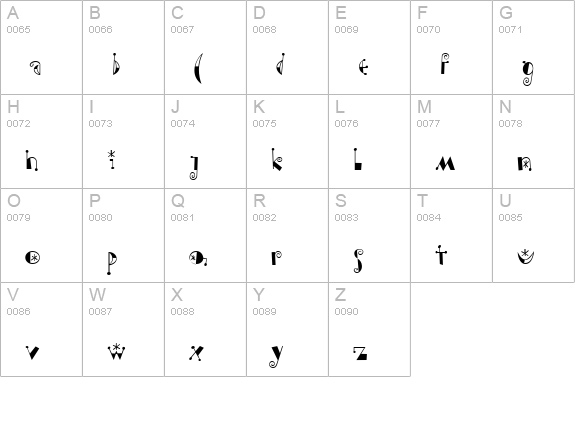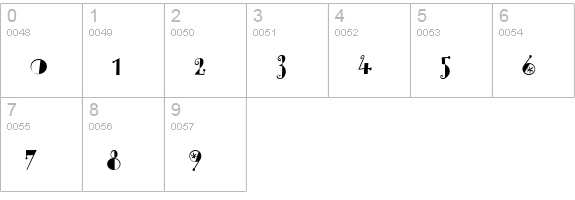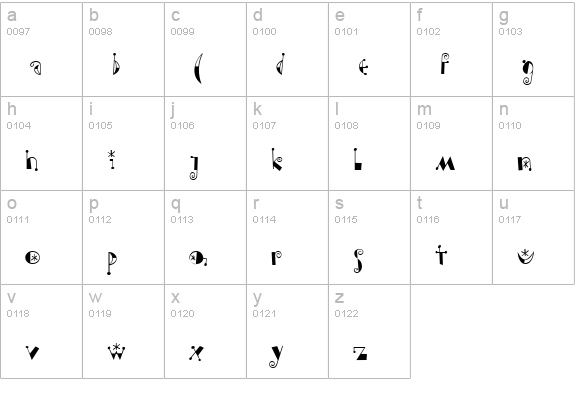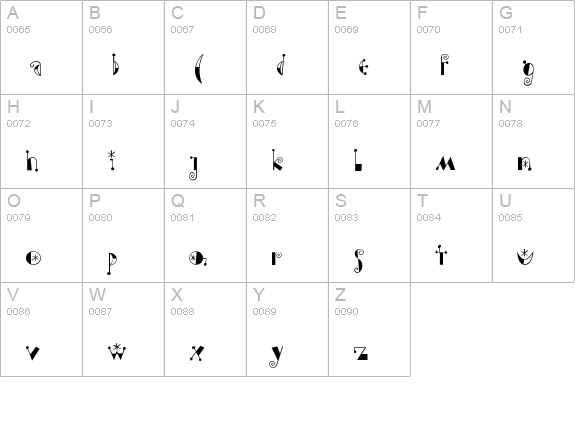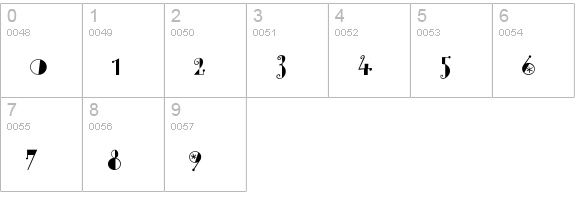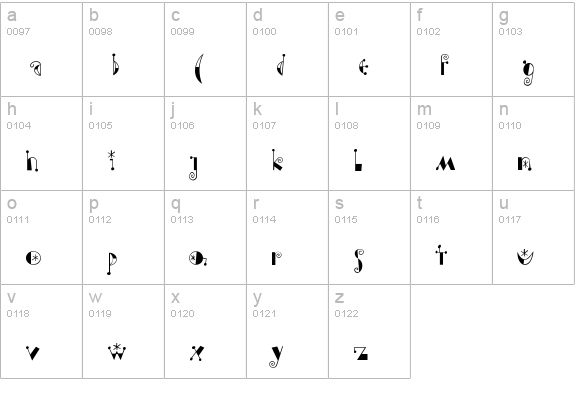
Moonchild Normal is the standard, neutral variant in the Moonchild typeface family \xE2\x80\x94 well suited to general body text, paragraphs, and standard typographic work.
Moonchild Normal is a charming and versatile font that exudes a sense of whimsy and creativity. With its rounded edges and playful curves, this font is perfect for adding a touch of fun to any design project. Whether you're creating a poster, logo, or invitation, Moonchild Normal will bring a unique and eye-catching element to your work. What's even better is that Moonchild Normal is available for free download at FontsMarket.com. That's right, you can easily access this delightful font without any cost. So why wait? Add a touch of magic to your designs with Moonchild Normal today!